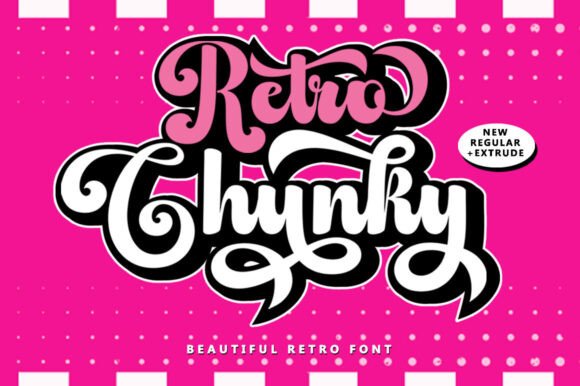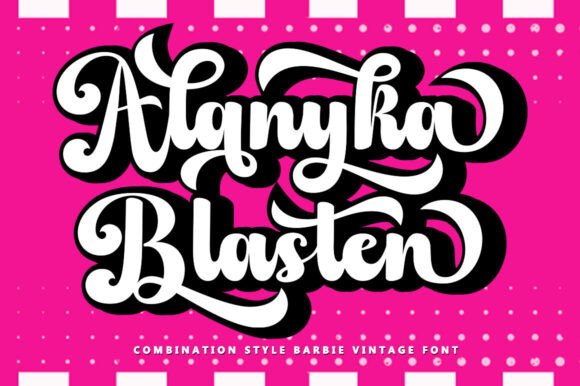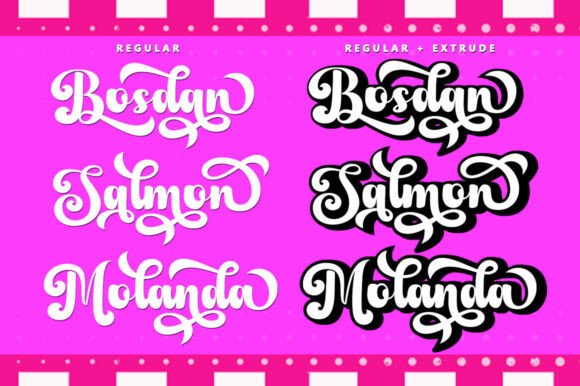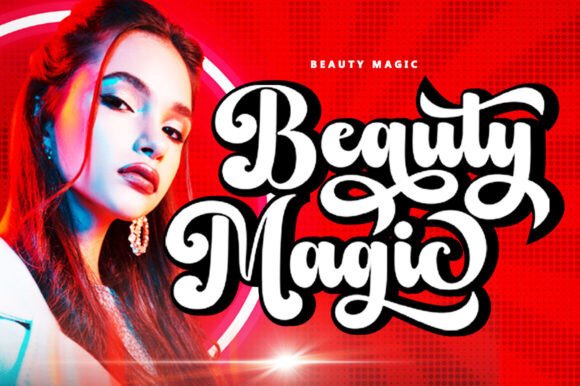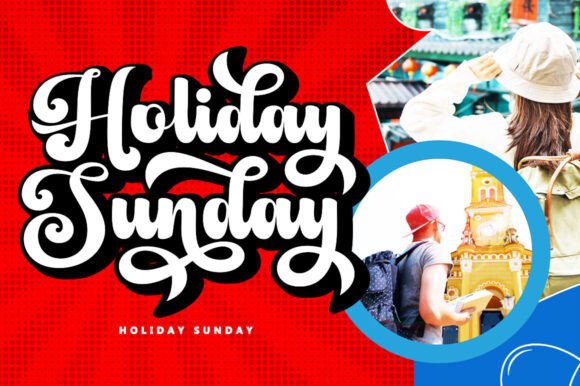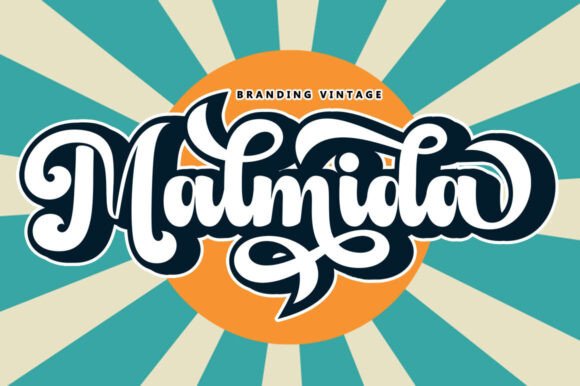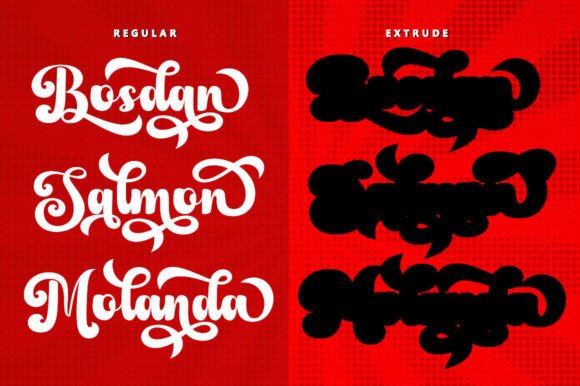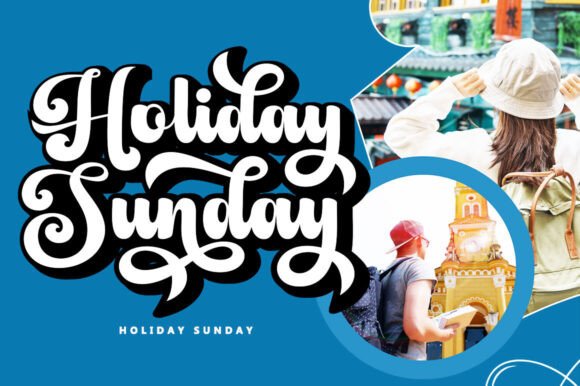
Retro Chunky Font
Retro Chunky is a Display Script and Retro font. It is bold, confident and dynamic and can add a lot of nostalgic character to your designs. This retro style is perfect to apply in various formal forms such as invitations, labels, restaurant menus, logos, fashion, makeup, stationery, novels, magazines, books, greeting/wedding cards, packaging, labels or any type of advertising purposes and you will definitely impress your audience.